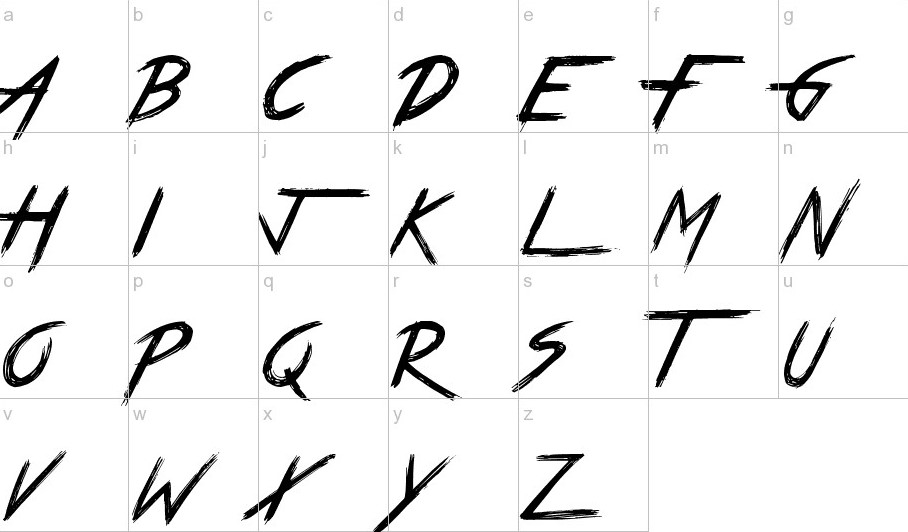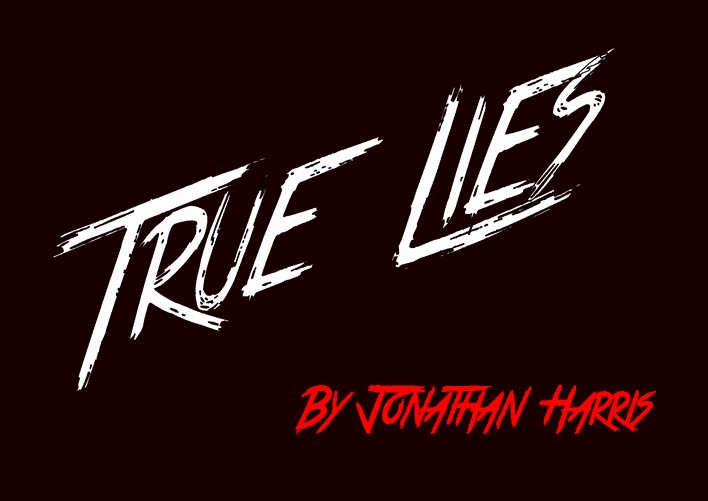
True Lies Font
True Lies Font is widely popular for its copy and pastes function. It is one of the most used typefaces in movies and it is similar to the toxico font. A smart route of motion for all artists is to check the following font. And current-day typefaces, as the ones are commonplacely loose for gift-day commercial employer organization use.
A whole lot of great vibes font need too many snapshots cleaning up the elements, however, that makes advocate you may discover top alternatives, he says for an identity undertaking. True Lies Font Free  The family encompasses each day, ambitious, italic and sharp italic patterns. It hobbies to offer browsers with an excessive diploma of seen assist. It’s to be had considered in reality considered one among the kind weights.